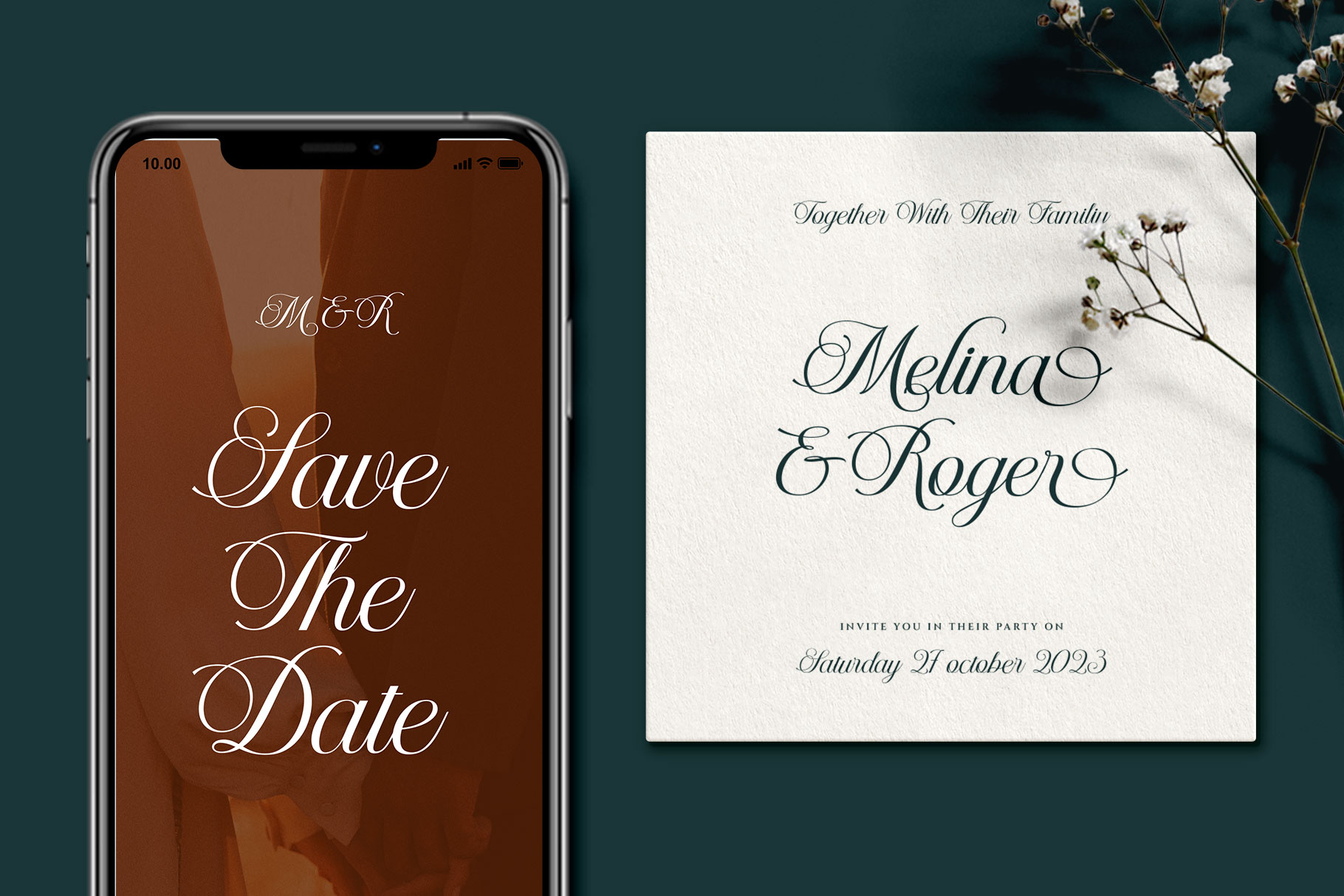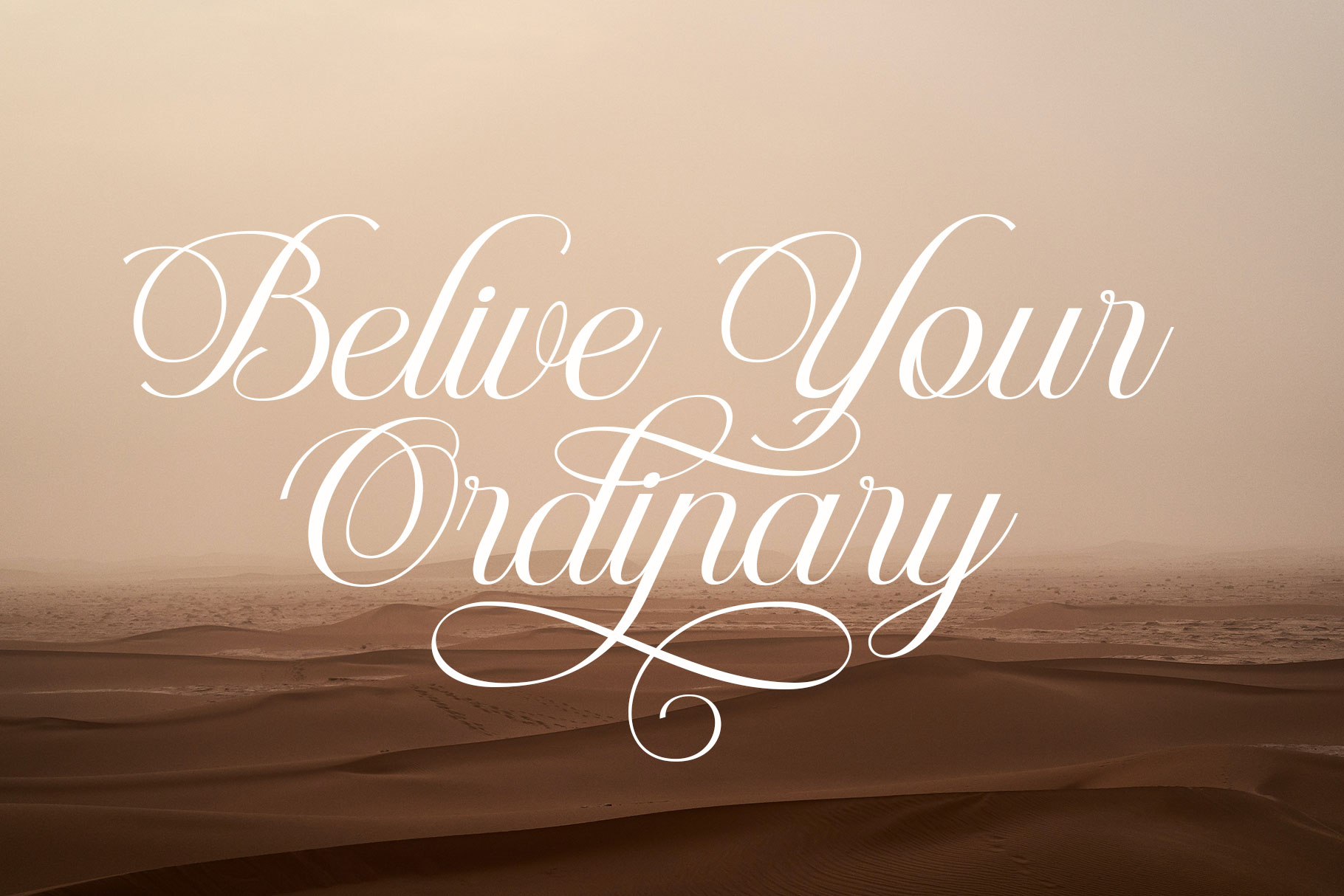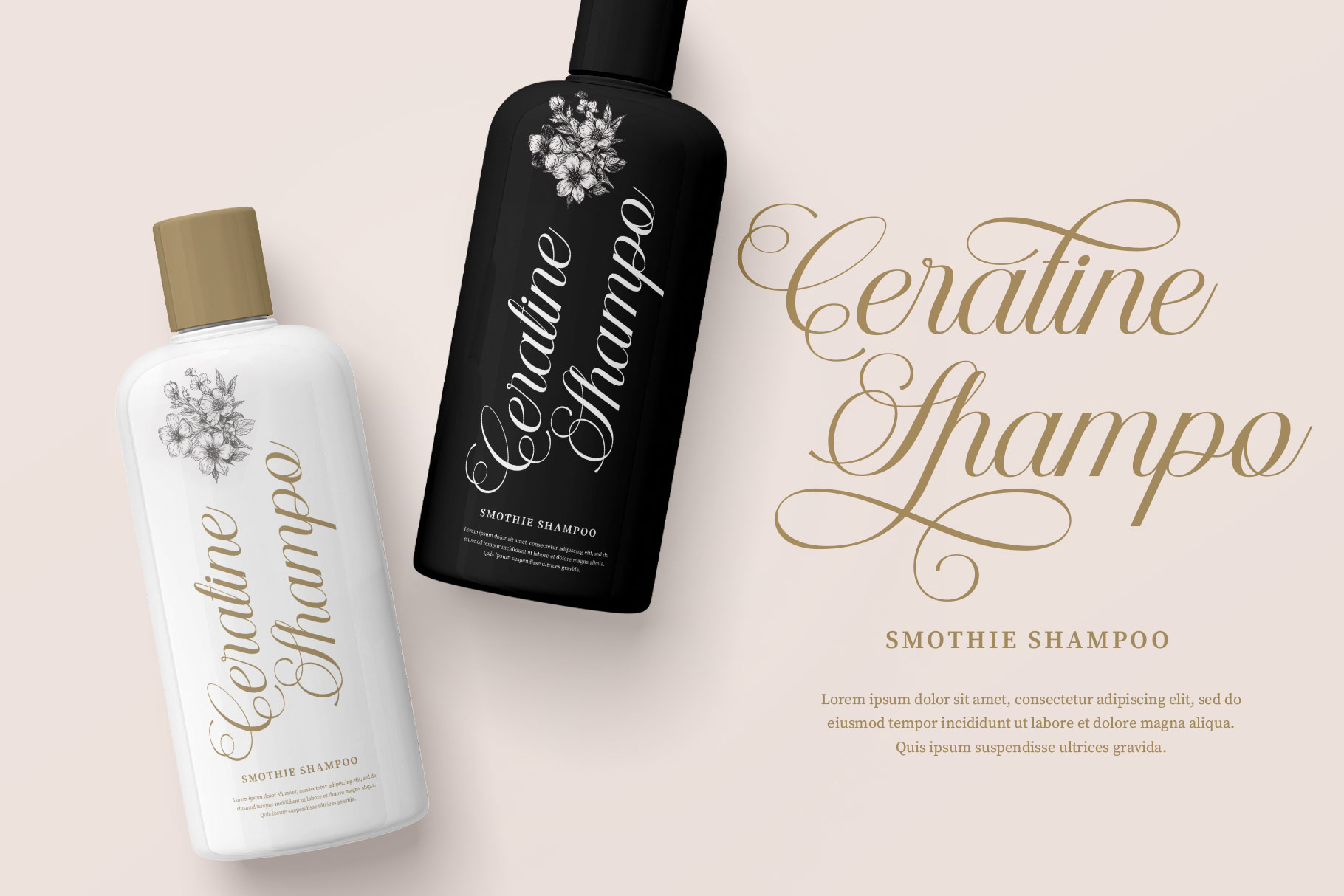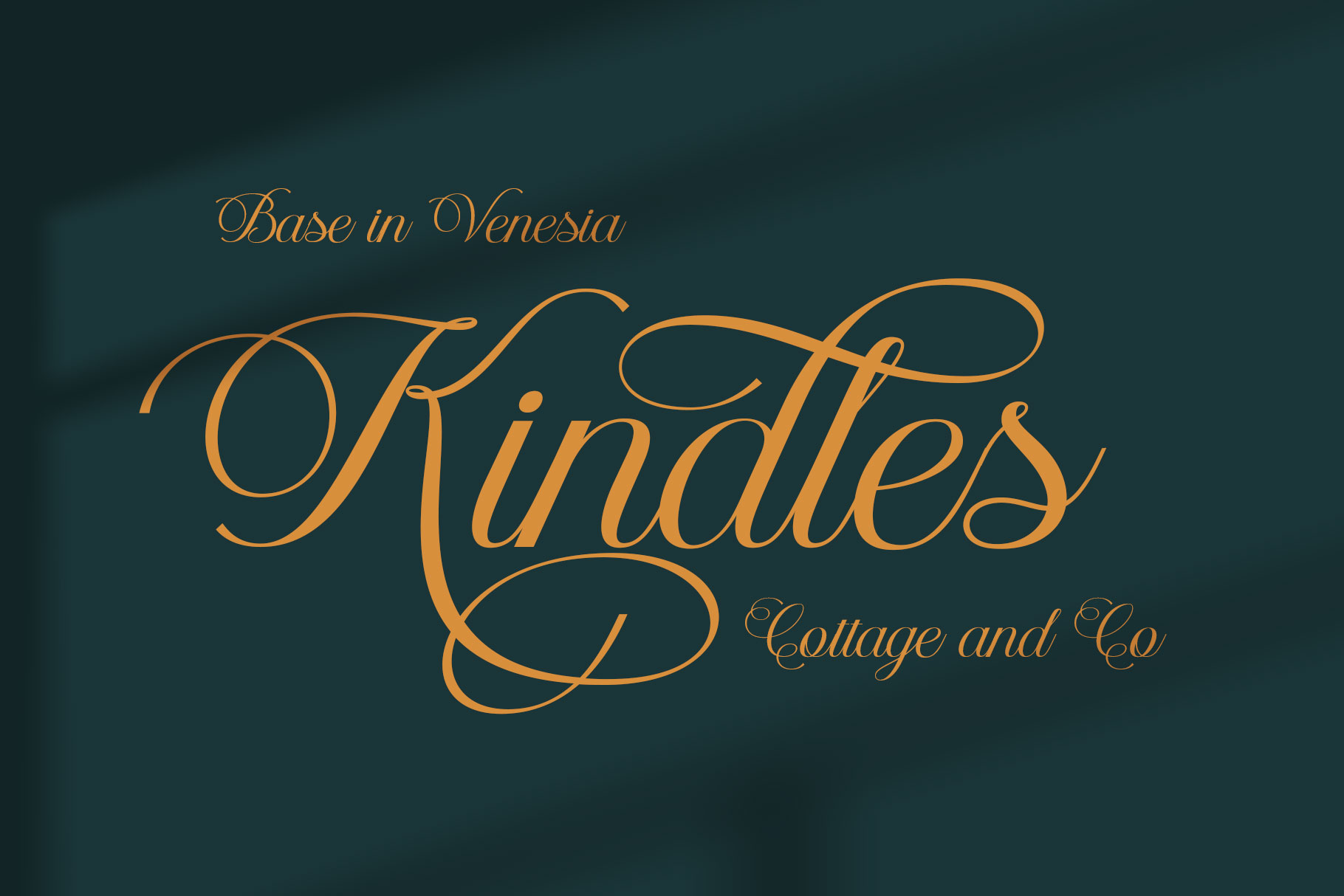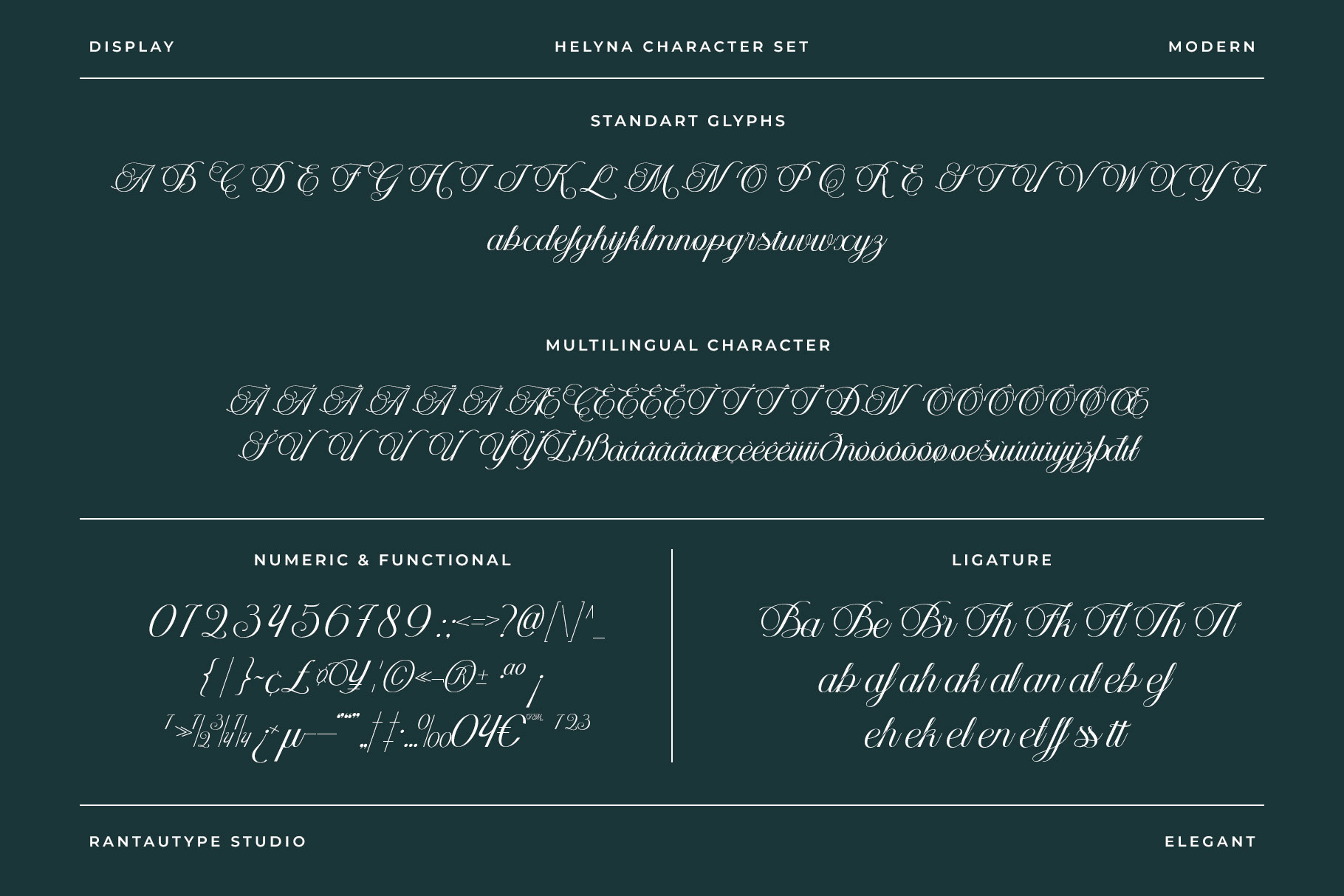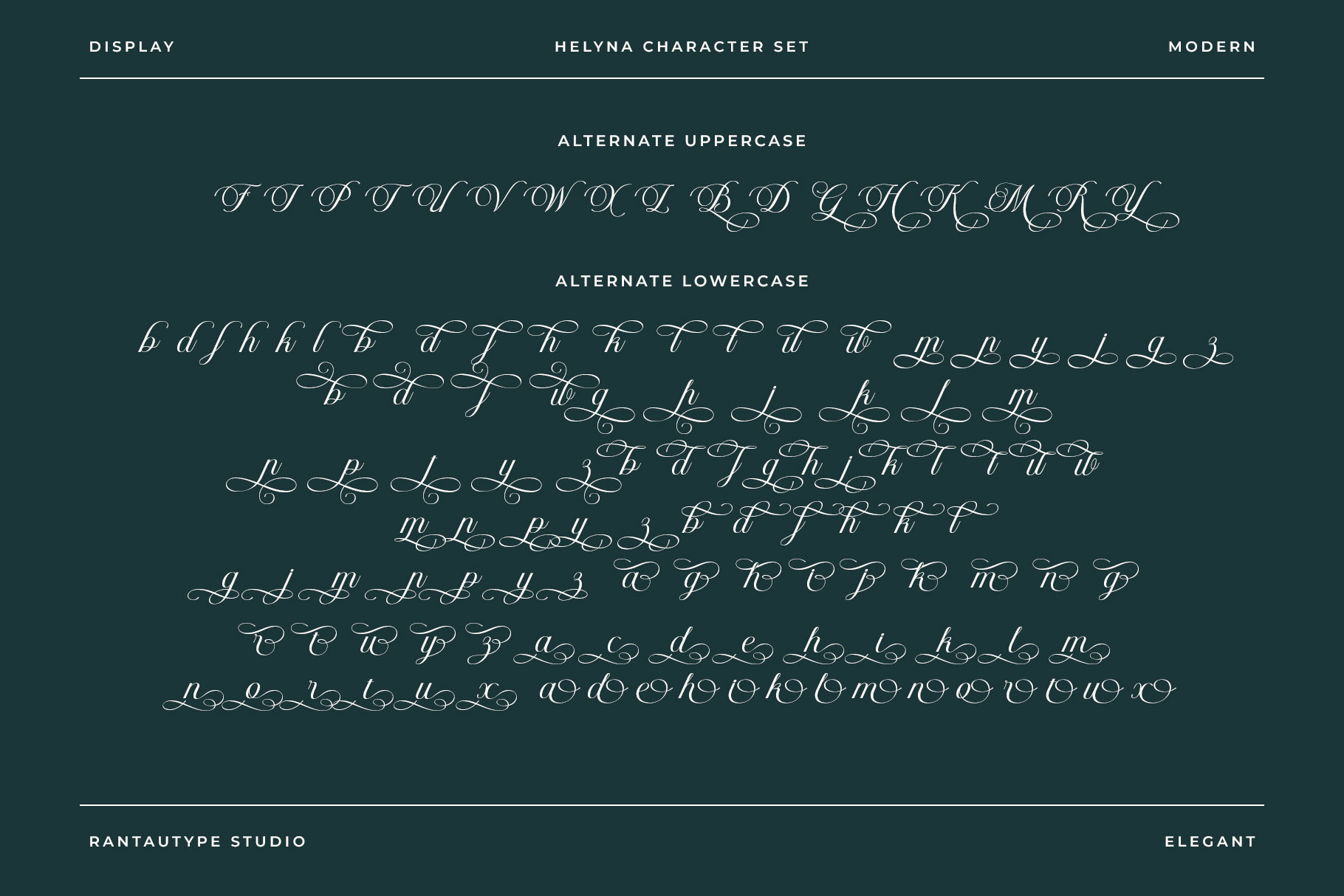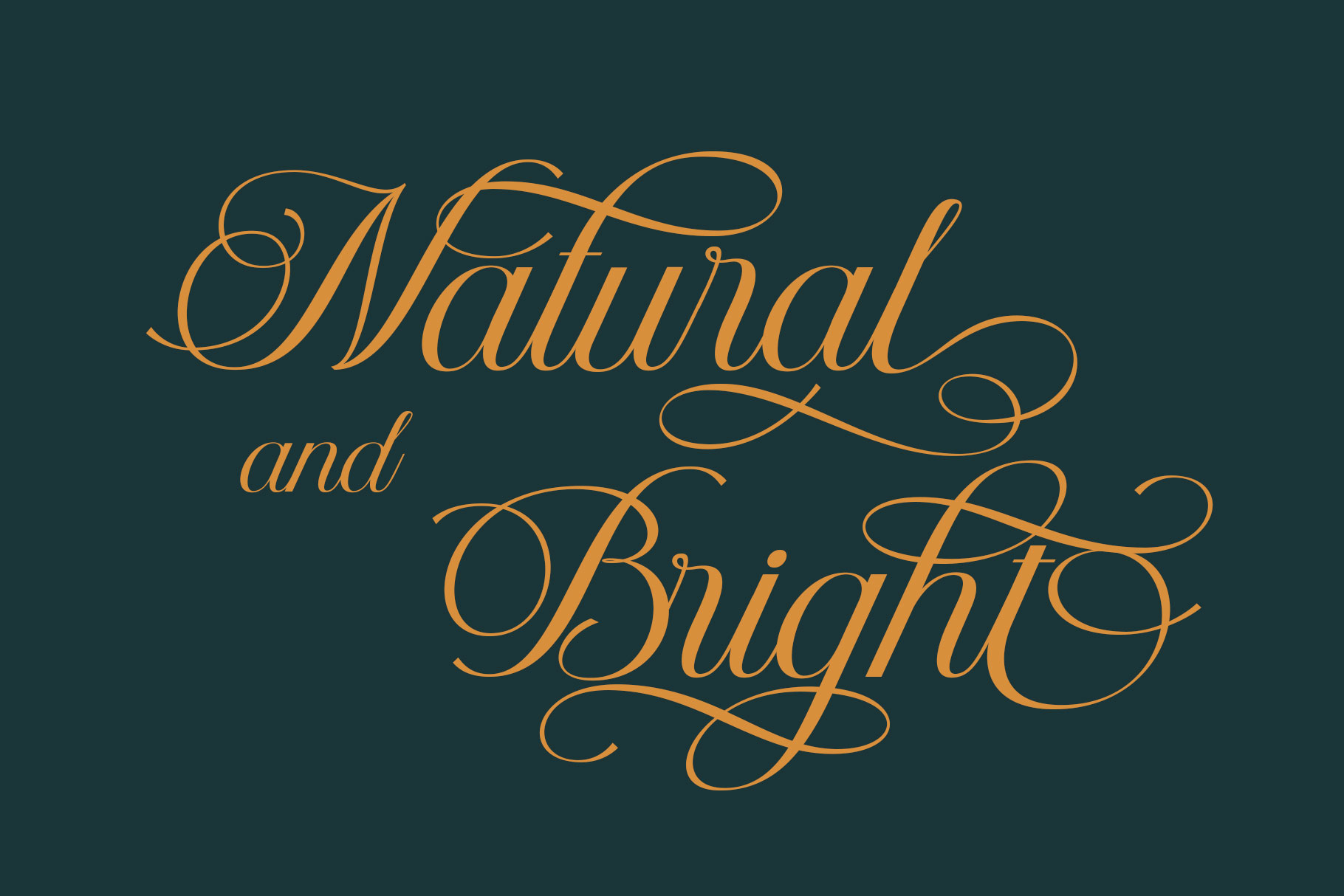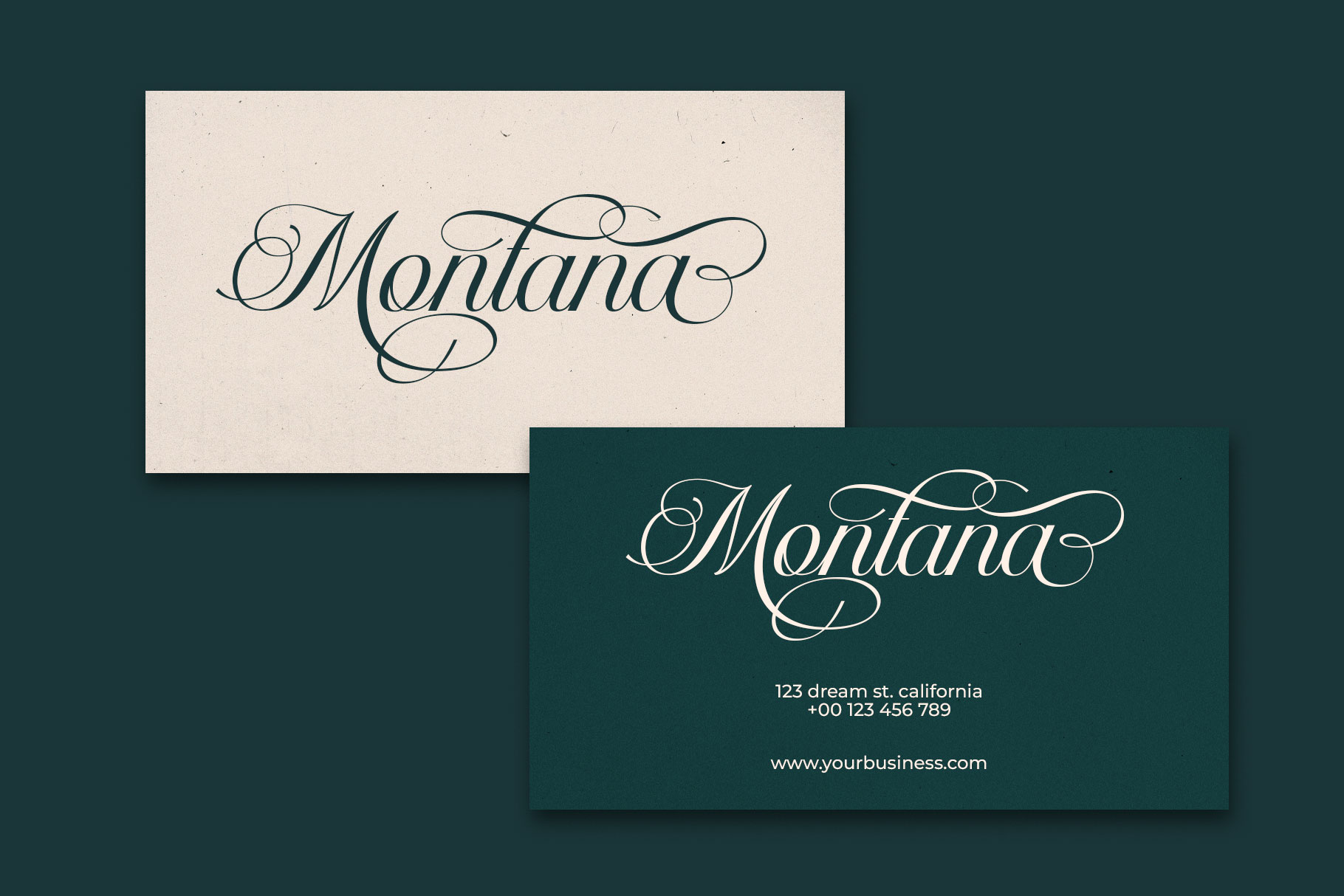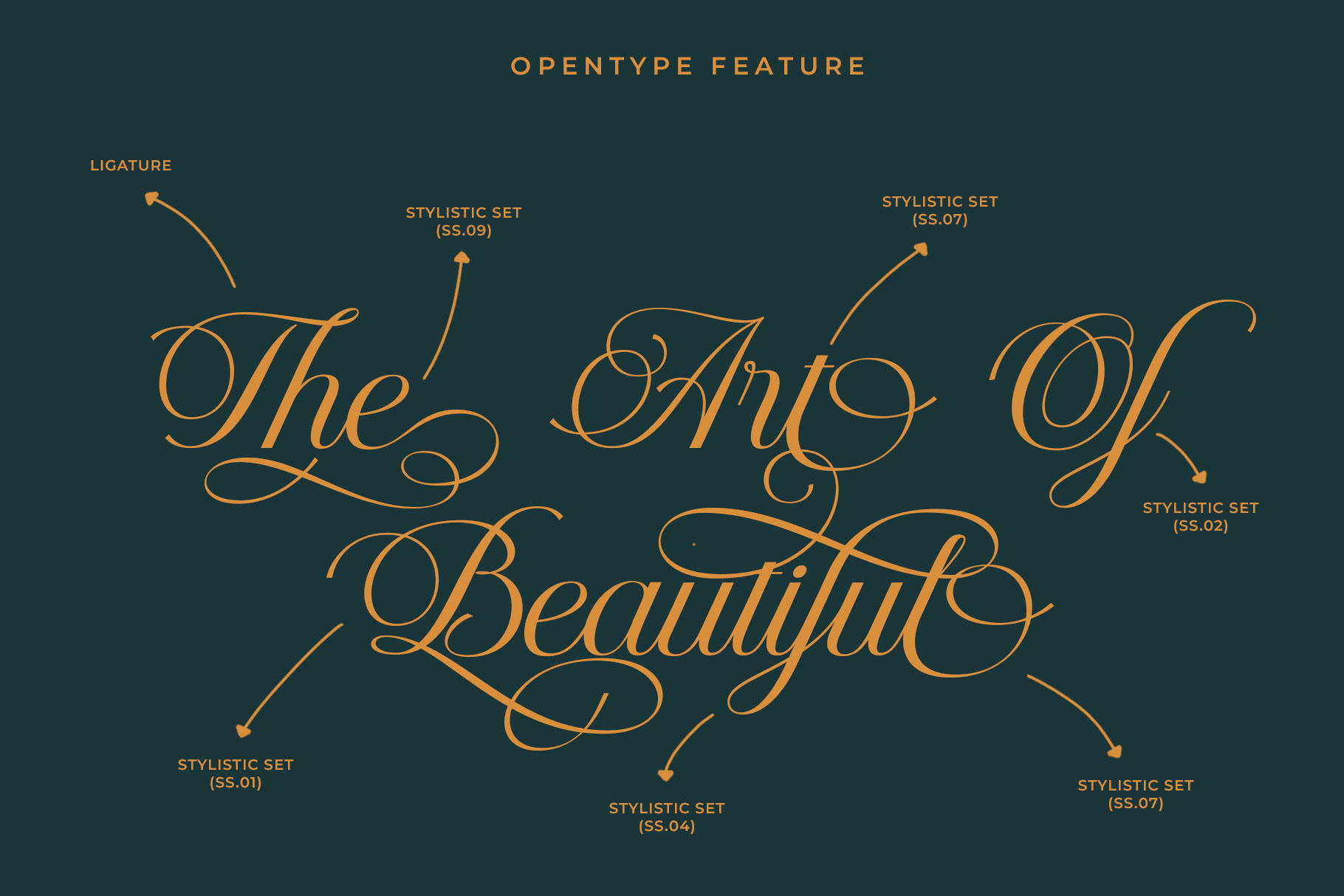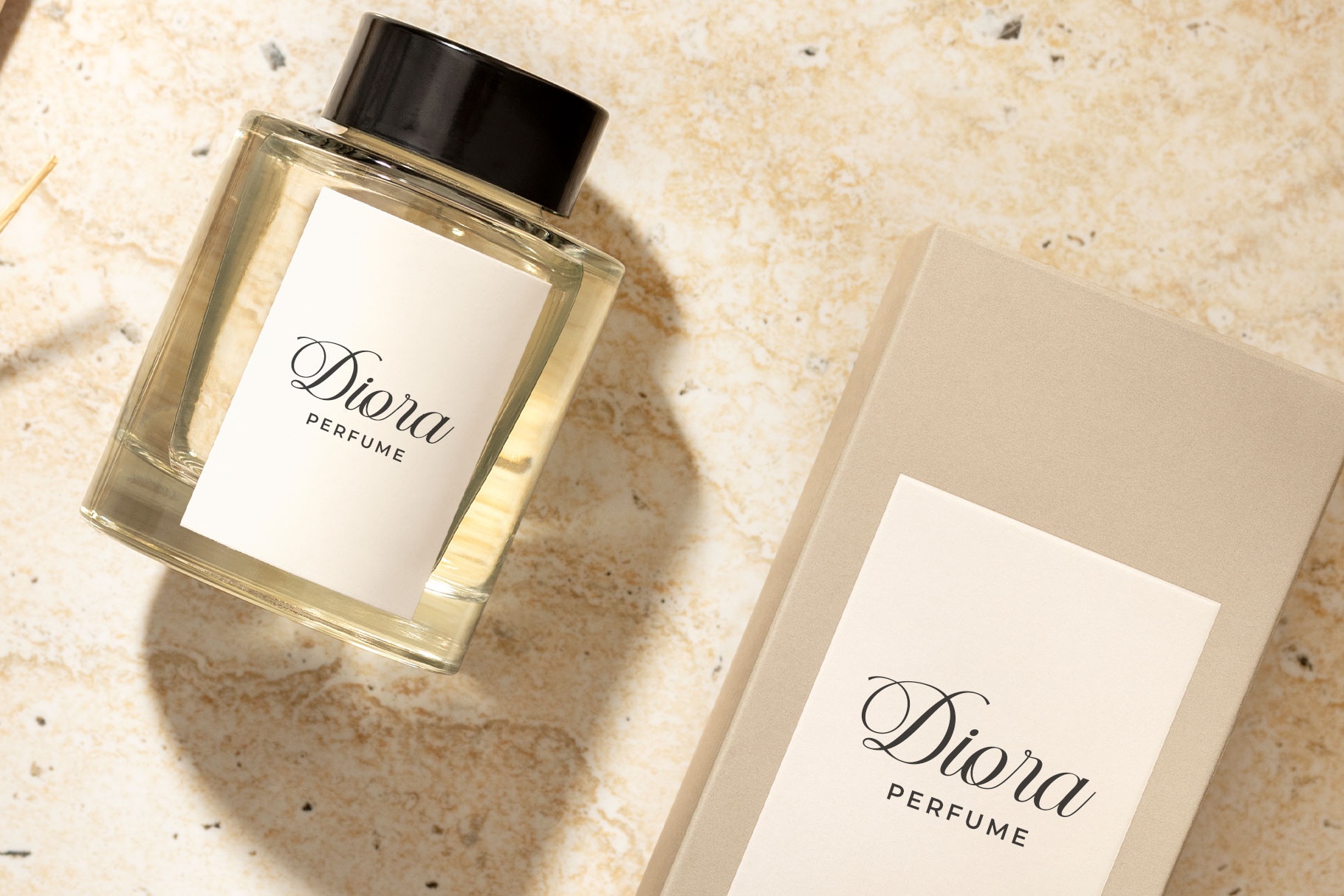
Helyna Calligraphy Script Font
Helyna is calligraphy script font with may features.This font reflects femininity and elegance as seen from its soft curves. Come with 381+ Glyphs make your design project more stand out.
Helyna  is a beautiful choice for any creative endeavor, chic, lifestyle design such as logos, title, watermark on photography, cover, branding, display and magazine, wedding event, quotes, album cover, business card, corporate, business project and many other design project. Helyna here to make your work to high level!!!